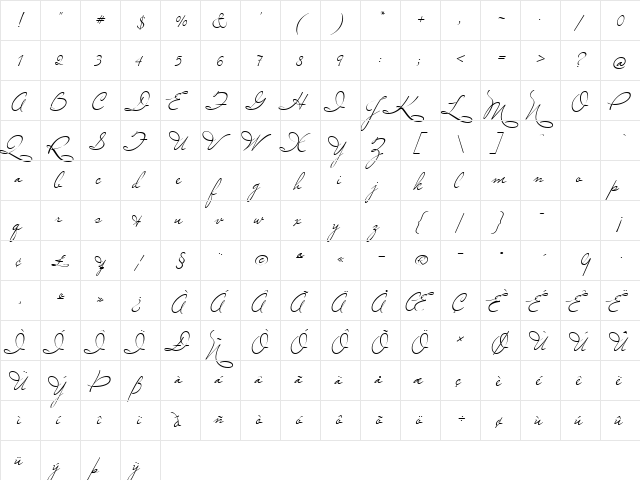
Marianna Regular
| Foundry | Alexandra Gophmann |
| Designer | A. Gophmann |
Design Context for Marianna Typeface
Marianna is a composed and adaptable typeface that performs quietly and consistently across a wide range of design contexts.